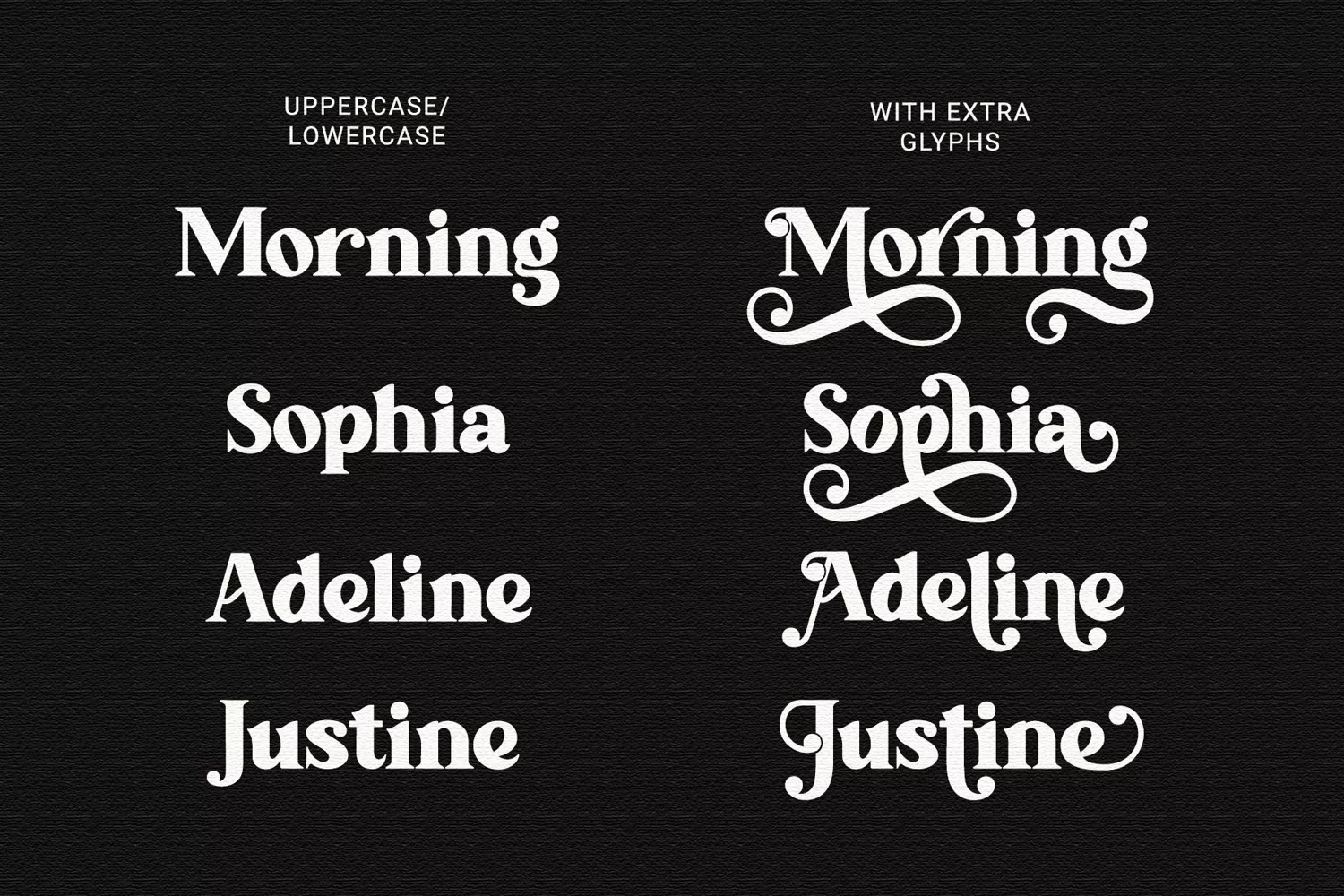
Millonia - Modern Serif Font with Extra Swirl Glyphs
Millonia is modern serif font with classiness and elegance. It has modern and vintage look.
Millonia has extra glyphs to give more options for crafters in designing. Swirly extra glyphs will make it look beautiful and elegant.